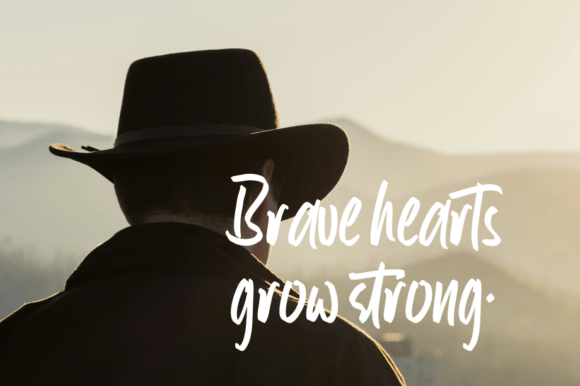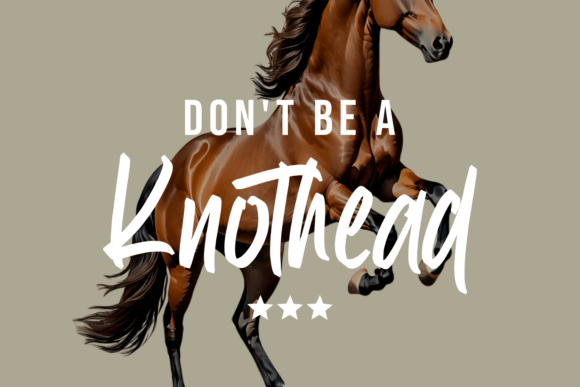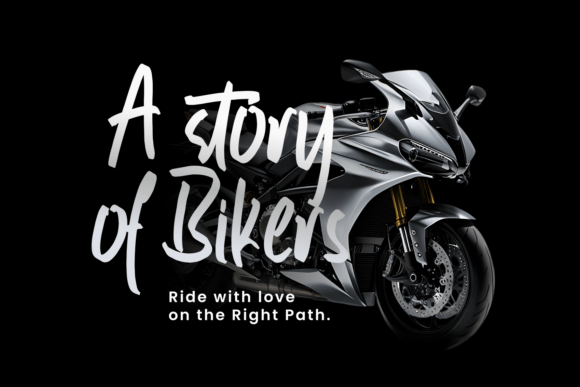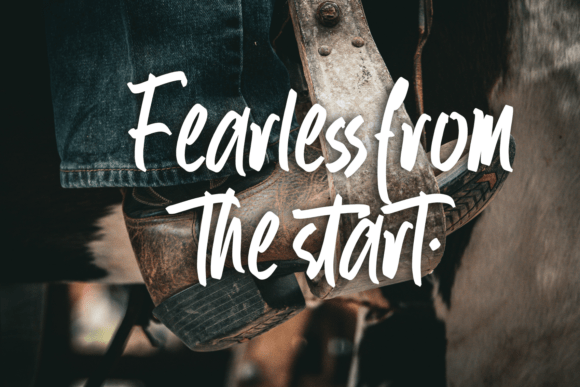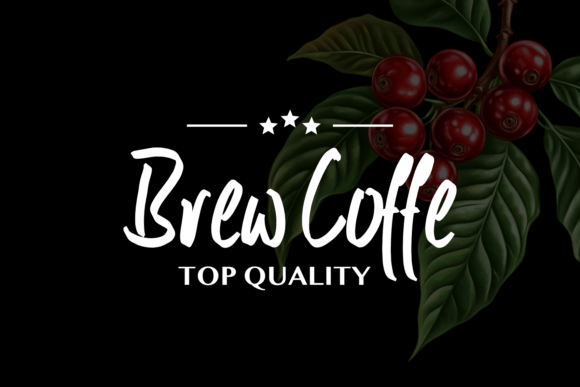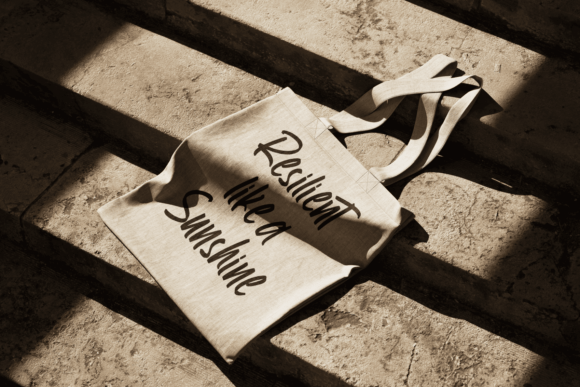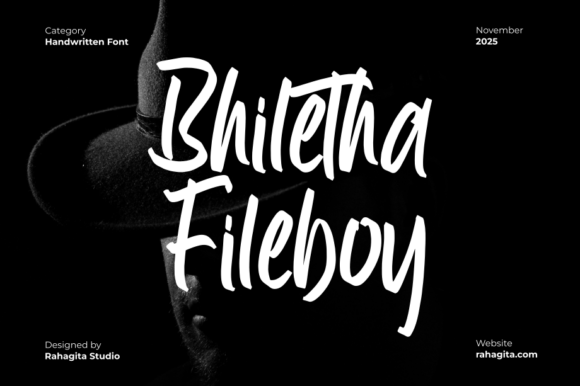
Unleashing the Wild Side: A Deep Dive into Bhiletha Fileboy Font
I’ll never forget the design project that led me to discover Bhiletha Fileboy. I was working on a branding campaign for a biker apparel brand, and I needed a font that embodied the spirit of adventure and freedom. After hours of scrolling through font libraries, I stumbled upon Bhiletha Fileboy, and it was love at first sight. The bold, expressive strokes and raw energy of this handwritten brush font instantly resonated with the brand’s personality.
As I started working with Bhiletha Fileboy, I fell in love with its unique character. Here are a few things that make this font stand out:
- ✨ Confident strokes: Bhiletha Fileboy exudes confidence and courage, making it perfect for designs that require a bold statement.
- ✅ Multilingual support: With support for multiple languages, this font is versatile and inclusive.
- 🔥 Raw energy: The font’s hand-drawn vibe brings an authentic, unbridled energy to any design.
Of course, no font is perfect, and Bhiletha Fileboy has a few minor quirks:
- 🤔 Limited use in body text: Due to its bold nature, Bhiletha Fileboy works best as a headline or accent font.
- ⚠️ Kerning adjustments: Some users may need to adjust kerning for optimal readability.
- Experiment with OpenType features like ligatures and stylistic alternates to add personality to your text.
The Story Behind Bhiletha Fileboy: Designer Inspiration
Rahagita Studio, the creator of Bhiletha Fileboy, aimed to craft a font that embodies the spirit of adventure and freedom. Inspired by the raw energy of handwritten brush strokes, Bhiletha Fileboy is designed to bring an authentic, unbridled vibe to your designs.
| Q: What type of projects is Bhiletha Fileboy best suited for? | A: Bhiletha Fileboy is perfect for branding, poster design, apparel prints, quotes, coffee packaging, biker merchandise, and logo typography. |
| Q: Does Bhiletha Fileboy support multilingual languages? | A: Yes, Bhiletha Fileboy has multilingual support, making it a versatile font for global designs. |
| Q: Can I use Bhiletha Fileboy for body text? | A: While possible, Bhiletha Fileboy works best as a headline or accent font due to its bold nature. |
| Q: Are there any OpenType features available in Bhiletha Fileboy? | A: Yes, Bhiletha Fileboy includes ligatures and stylistic alternates, which can be accessed through OpenType features in compatible design software. |
With Bhiletha Fileboy, you’ll be able to add a bold, adventurous spirit to your designs. Its confident strokes and raw energy make it perfect for a wide range of creative projects. So go ahead, unleash your wild side, and let Bhiletha Fileboy bring your designs to life!